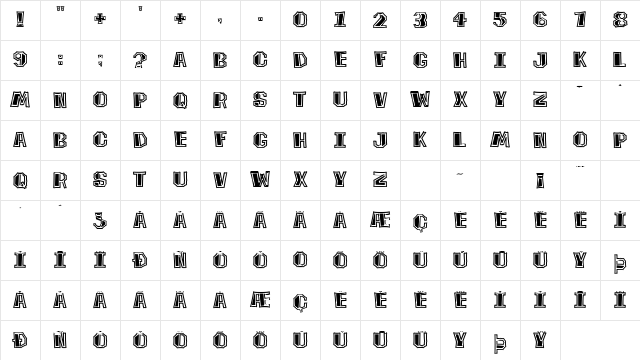
Tiki Tooka BV Regular Free Font
Tiki Tooka BV Regular
Design Context for Tiki Tooka BV
Tiki Tooka BV is a composed and adaptable typeface that performs quietly and consistently across a wide range of design contexts.